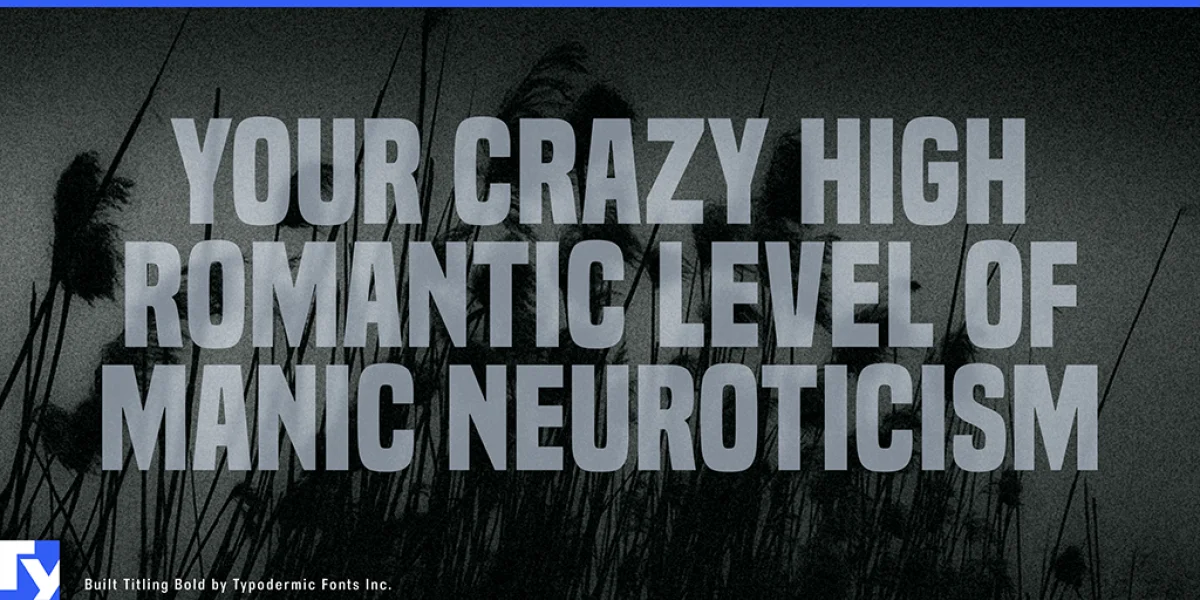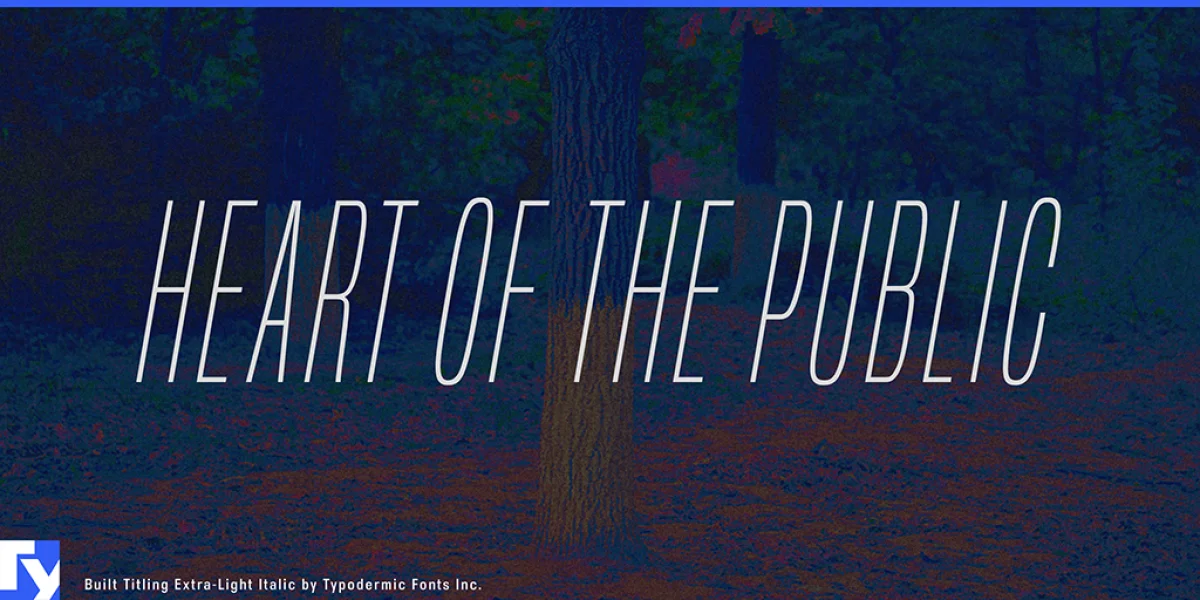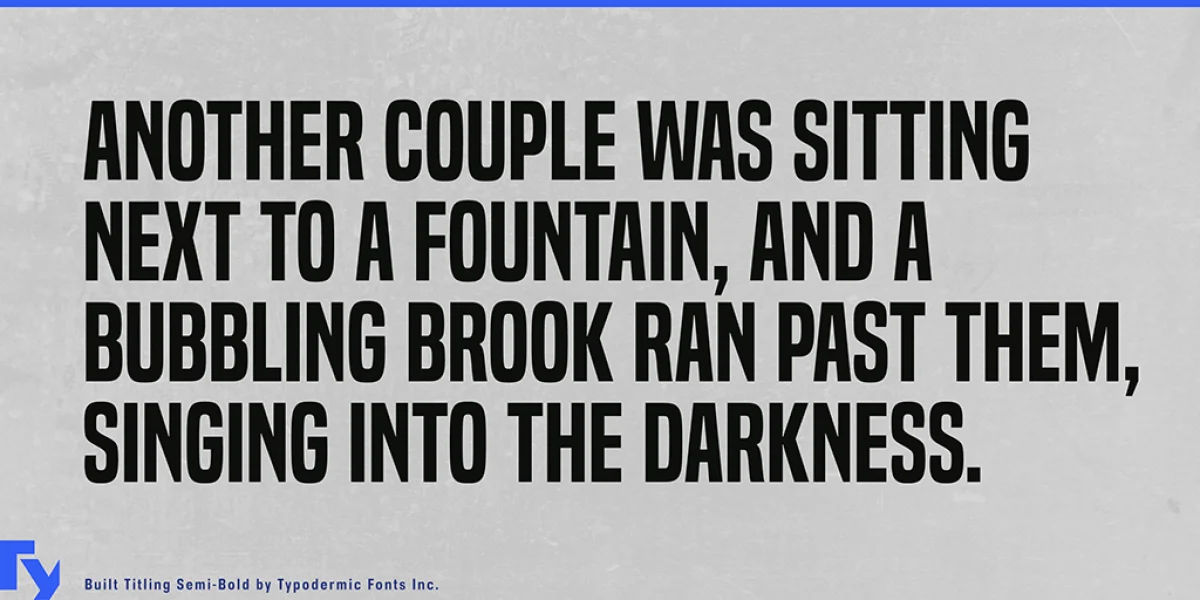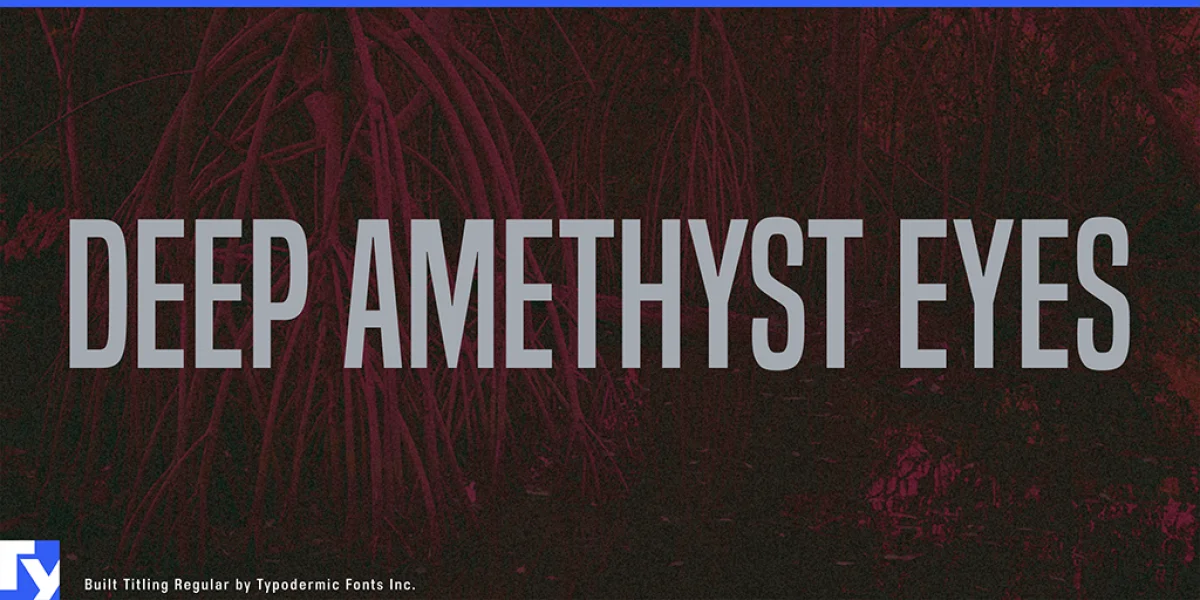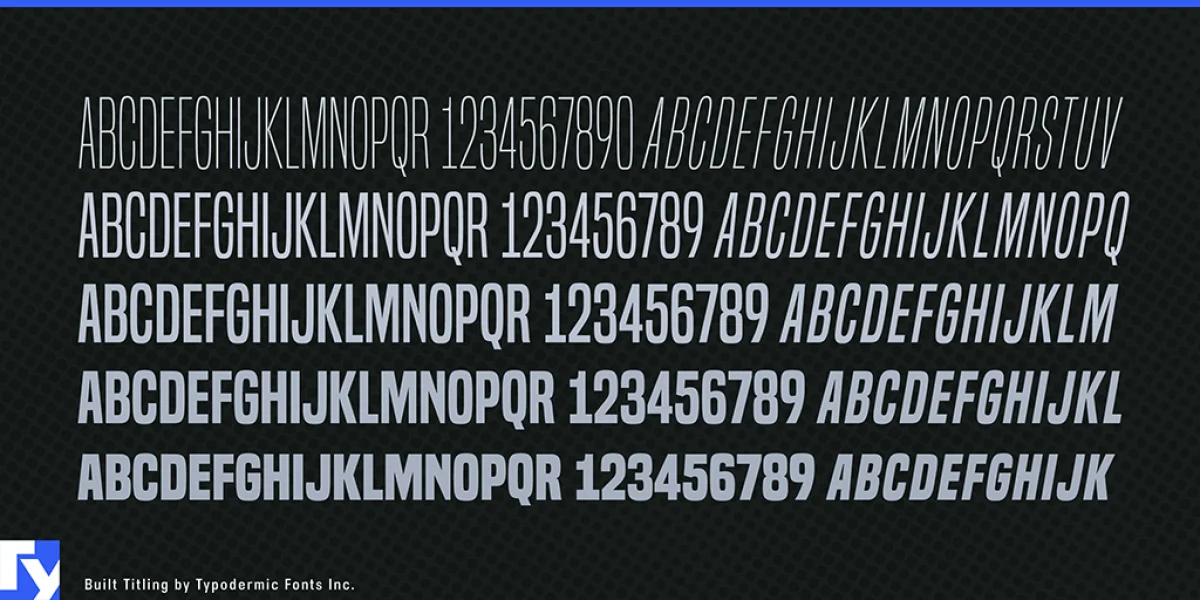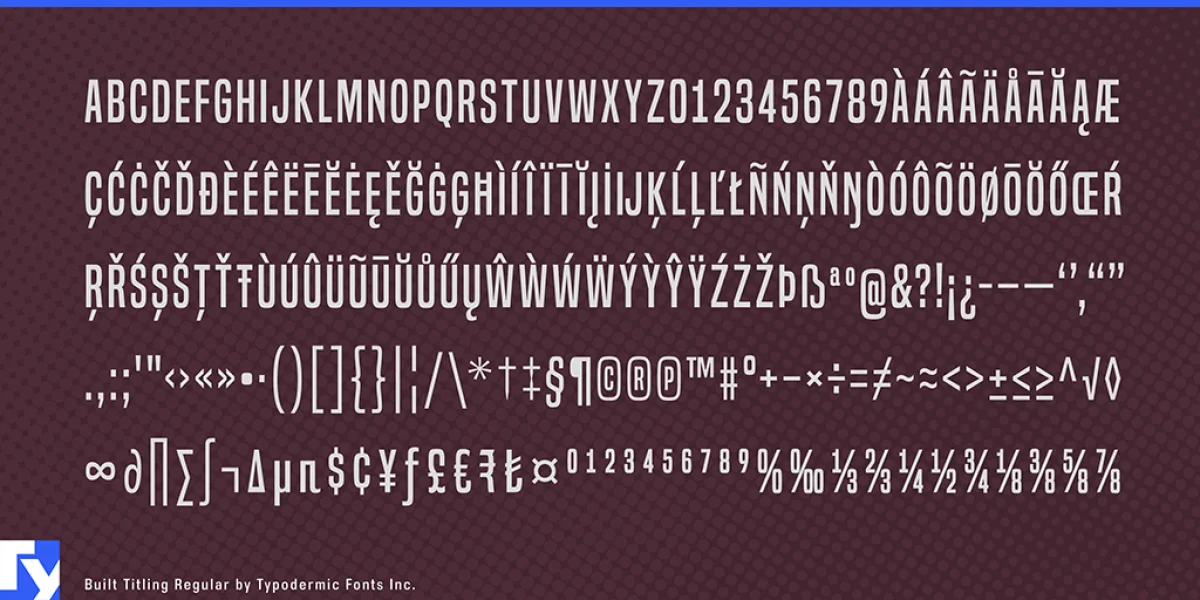
Built's sole purpose is to create sturdy, compact headlines on screen. Its wraparound curves project your headlines in a newsy voice, designed with trust and neutrality in mind. Subtle curls evoke the feel of a different newspaper age without appearing too old-fashioned. The Built family is available in five weights, ranging from Extra-Light to Bold. However, this is not your standard thin to fat linear range. When designing for the screen, light typefaces have practical limits. With variable resolutions and screen sizes nowadays, going lighter means going bigger. Much bigger. And it's no fun if your words slip off the page. Built becomes narrower as it becomes lighter. Now you can scale up those headlines and still have room to spare. Set appealing, oversized page titles without worrying about copyfitting. When you have a list of numbers to align, tabular (monospace) numerals come in handy. But tabular numerals don't look good in headlines, and they take up too much room. Many fonts allow you to select between proportional and tabular numerals. Designers can use OpenType technology to access a variety of numerals, but deploying OpenType features on the web isn’t fun–nor is it always viable. Built has a simple solution: disable kerning and all numerals, monetary symbols, and most math symbols will line up—easy. Built contains fractions, primes, ordinals, and vertically compact accents. As Built loses weight, the asterisk grows more legs, allowing it to appear tonally even in Extra-Light. The italics are thin and loosened on the sides, giving cool emphasis that’s more than just a simple slant. Built comes in Extra-Light, Light, Regular, Semi-Bold, and Bold weights, as well as Italics. If you're looking for lowercase letters, visit Typodermic Fonts and look for the full version of Built. Most Latin-based European writing systems are supported, including the following languages. Afaan Oromo, Afar, Afrikaans, Albanian, Alsatian, Aromanian, Aymara, Bashkir (Latin), Basque, Belarusian (Latin), Bemba, Bikol, Bosnian, Breton, Cape Verdean, Creole, Catalan, Cebuano, Chamorro, Chavacano, Chichewa, Crimean Tatar (Latin), Croatian, Czech, Danish, Dawan, Dholuo, Dutch, English, Estonian, Faroese, Fijian, Filipino, Finnish, French, Frisian, Friulian, Gagauz (Latin), Galician, Ganda, Genoese, German, Greenlandic, Guadeloupean Creole, Haitian Creole, Hawaiian, Hiligaynon, Hungarian, Icelandic, Ilocano, Indonesian, Irish, Italian, Jamaican, Kaqchikel, Karakalpak (Latin), Kashubian, Kikongo, Kinyarwanda, Kirundi, Kurdish (Latin), Latvian, Lithuanian, Lombard, Low Saxon, Luxembourgish, Maasai, Makhuwa, Malay, Maltese, Māori, Moldovan, Montenegrin, Ndebele, Neapolitan, Norwegian, Novial, Occitan, Ossetian (Latin), Papiamento, Piedmontese, Polish, Portuguese, Quechua, Rarotongan, Romanian, Romansh, Sami, Sango, Saramaccan, Sardinian, Scottish Gaelic, Serbian (Latin), Shona, Sicilian, Silesian, Slovak, Slovenian, Somali, Sorbian, Sotho, Spanish, Swahili, Swazi, Swedish, Tagalog, Tahitian, Tetum, Tongan, Tshiluba, Tsonga, Tswana, Tumbuka, Turkish, Turkmen (Latin), Tuvaluan, Uzbek (Latin), Venetian, Vepsian, Võro, Walloon, Waray-Waray, Wayuu, Welsh, Wolof, Xhosa, Yapese, Zapotec Zulu and Zuni.